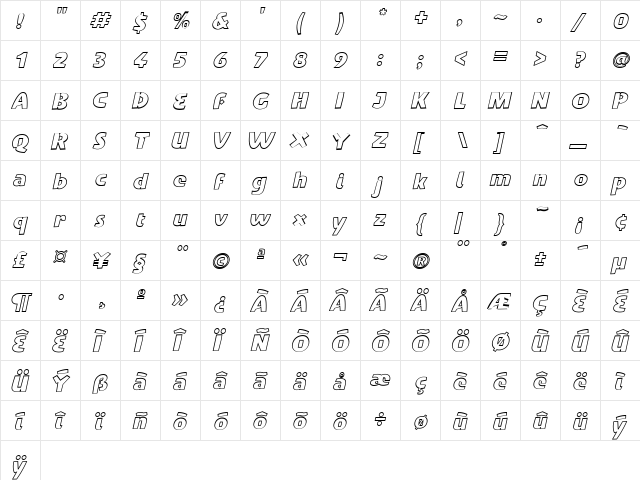
Penguin Italic
Design Context for Penguin Typeface
Penguin takes a measured approach to typography — its balanced proportions and neutral character make it a reliable workhorse for both digital and print work. The dynamic lean of this cut emphasises speed and emphasis in any layout.
Pro Tip: Use Penguin for emphasis, pull quotes, and subheadings where its slanted energy can add rhythm to the layout.